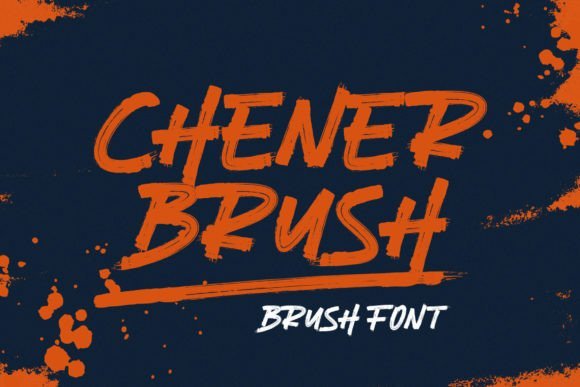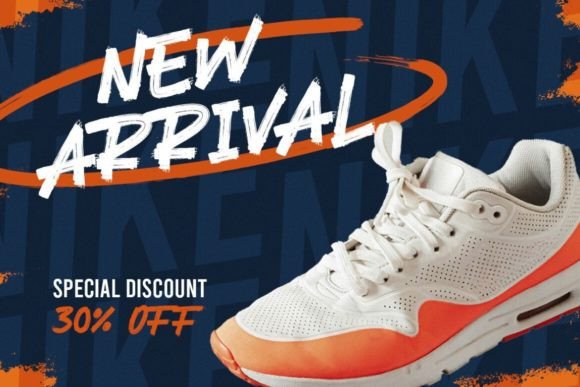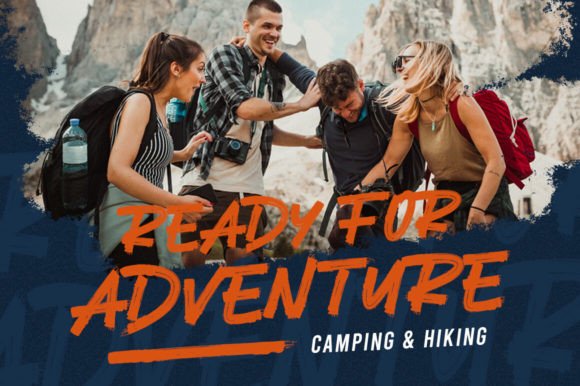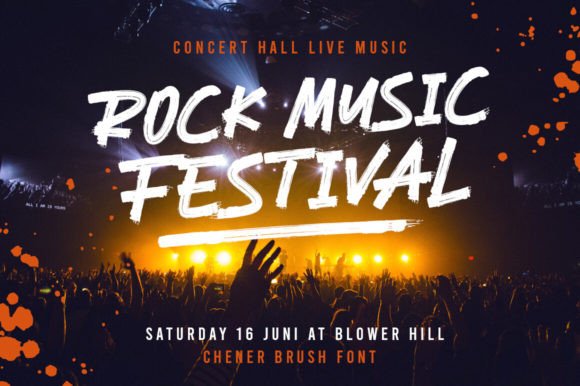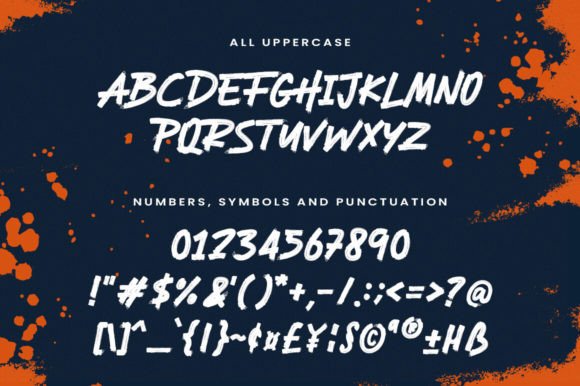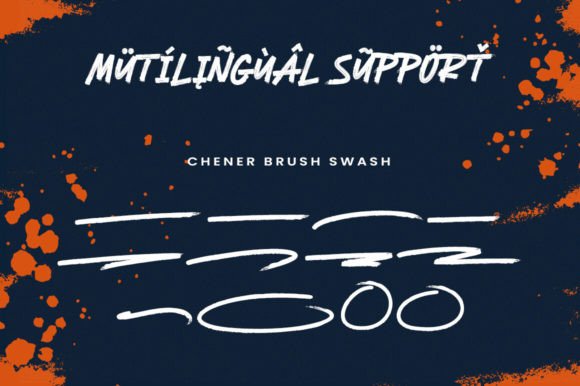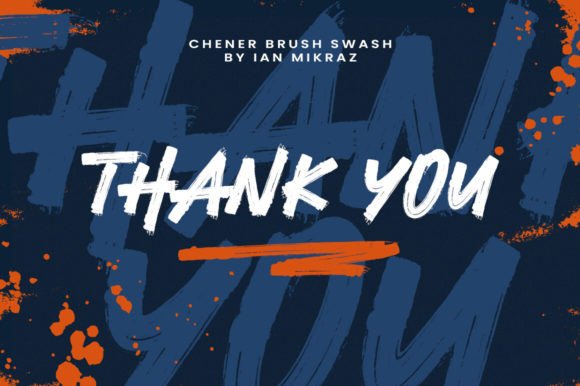
Unlock the Power of Hand-Drawn Typography
There’s something special about capturing the perfect creative moment – the rush of inspiration, the thrill of bringing an idea to life. You’re brainstorming a new project, pouring over designs, and suddenly, it hits you: the perfect font to give your work that extra oomph. For designers, finding the right font can make all the difference between a good design and a great one.
Enter the Chener Brush Font, a dynamic handbrush font that’s about to revolutionize your design process. This expressive and authentic font adds energy and spontaneity to your projects, making it perfect for posters, logos, merchandise, and social media graphics. With its natural brush strokes and varied thickness, the Chener Brush Font gives your text a lively and organic feel that’s sure to capture attention and convey personality and emotion.
Chener Brush Font Key Features
- Font Family: Chener Brush Font is a unique brush script font that offers a natural, handwritten feel.
- Unique Characteristics: Features a dynamic, expressive feel with subtle variations in line width and stroke direction, giving it a truly hand-crafted look.
Designer Review: Chener Brush Font
At first glance, the Chener Brush Font seems like a refreshing addition to any design project. ✨ Its unique blend of modern and vintage elements makes it a great choice for creatives looking to add a personal touch to their work. ✨ The font’s fluid, handwritten style is reminiscent of classic brush fonts, but with a more contemporary twist.
The Chener Brush Font is well-suited for a variety of design applications, including logotypes, quotes, and even packaging design. ✨ Its versatility and ease of use make it a great choice for designers of all skill levels.
- ⚠️ The font may not be ideal for body text, as its unique style can be distracting when used extensively.
- ⚠️ Some characters may not be perfectly formed, which could be a concern for designers who value precision.
Overall, I think the Chener Brush Font is a solid addition to any design library. While it may have some limitations, its unique style and versatility make it a great choice for creatives looking to add some personality to their work.
The Chener Brush Font is perfect for:
- Creating whimsical and playful designs.
- Adding a touch of elegance and sophistication to your designs.
- Designing children’s books, magazines, or other publications.
Alternatives to Chener Brush Font
Great Vibes is a beautiful, handwritten font perfect for creating a whimsical and artistic feel. It’s ideal for use in logos, branding, and other design elements where a touch of elegance is required. Compared to Chener Brush Font, Great Vibes has a more refined and sophisticated look, making it suitable for high-end designs.
Alex Brush is a gorgeous, hand-drawn font that exudes warmth and sophistication. It’s perfect for use in invitations, stationery, and other design elements where a personal touch is desired. Compared to Chener Brush Font, Alex Brush has a more organic and natural feel, making it ideal for designs that require a sense of humanity.
Lobster is a fun, cursive font that’s perfect for use in casual designs, such as social media graphics, flyers, and other promotional materials. Compared to Chener Brush Font, Lobster has a more playful and informal tone, making it suitable for designs that require a relaxed and approachable feel.